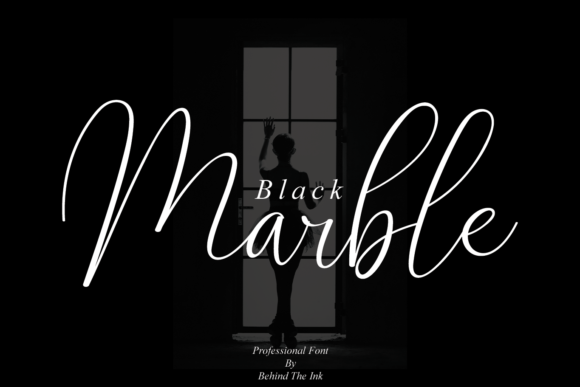
Unveiling the Elegance of Black Marble Font: A Romantic and Luxurious Script Typeface
In the realm of typography, few fonts manage to convey the essence of luxury and romance as effortlessly as the Black Marble Font. This exquisite script typeface is designed to add a touch of sophistication and elegance to any design project, making it a coveted choice among designers and crafters alike. With its unique characteristic of characters dancing along the baseline, Black Marble Font brings a dynamic and fluid feel to your designs, setting them apart from the ordinary.
The Distinctive Charm of Black Marble Font
Black Marble Font is not just another typeface; it’s an experience. Its romantic and sweet script style is meticulously crafted to evoke emotions and create a lasting impression. The fluidity of its characters, as they gracefully dance along the baseline, adds a kinetic energy to your designs. This distinctive charm makes Black Marble Font an ideal choice for projects that demand a high level of sophistication and luxury.
Elevate Your Design Projects with Luxury and Sophistication
Whether you’re working on a branding project, crafting a beautiful wedding invitation, or designing a luxurious packaging solution, Black Marble Font is the perfect companion. Its versatility allows it to seamlessly integrate into various design contexts, adding a touch of elegance and refinement. With Black Marble Font, you can:
- Create stunning brand identities that exude luxury and sophistication.
- Design beautiful wedding invitations and stationery that leave a lasting impression.
- Craft luxurious packaging solutions that elevate your brand’s perceived value.
- Develop captivating advertising materials that draw attention and evoke emotion.
Why Choose Black Marble Font?
In a world where design trends are constantly evolving, Black Marble Font stands out for its timeless elegance and versatility. Here are a few reasons why designers and crafters prefer Black Marble Font:
- Unique and Memorable: The dancing characters of Black Marble Font make it instantly recognizable and memorable.
- Versatile: Suitable for a wide range of design projects, from luxury branding to elegant stationery.
- Elegant and Sophisticated: Adds a touch of luxury and refinement to any design.
- Easy to Read: Despite its decorative nature, Black Marble Font maintains excellent readability.
Black Marble Font is more than just a typeface; it’s a design statement that speaks of luxury, romance, and sophistication. Its unique style, characterized by characters that dance along the baseline, offers designers and crafters a powerful tool to elevate their projects. Whether you’re aiming to create a luxurious brand identity, a beautiful wedding invitation, or any design project that demands elegance, Black Marble Font is an excellent choice. Embrace the beauty and versatility of Black Marble Font, and watch your designs transform into memorable experiences.